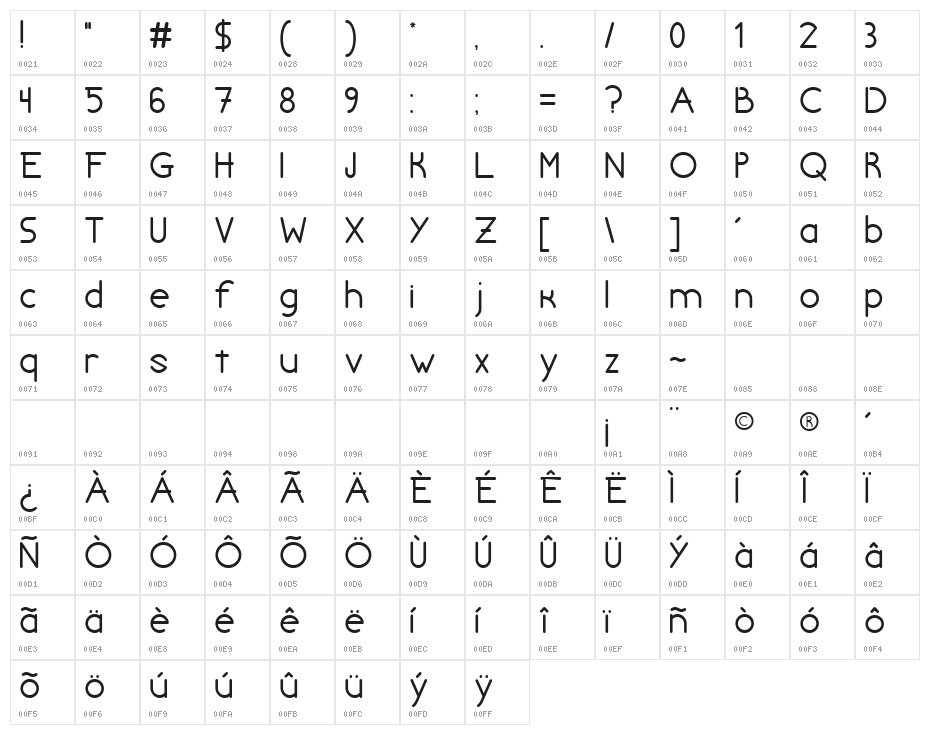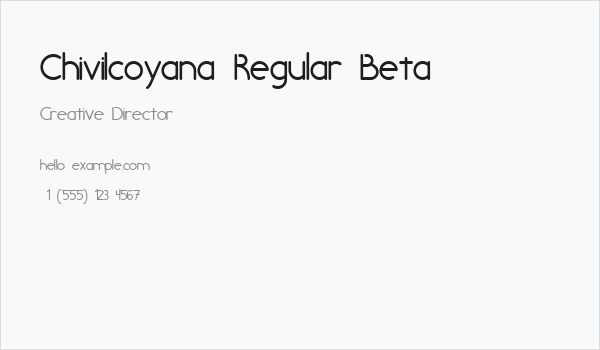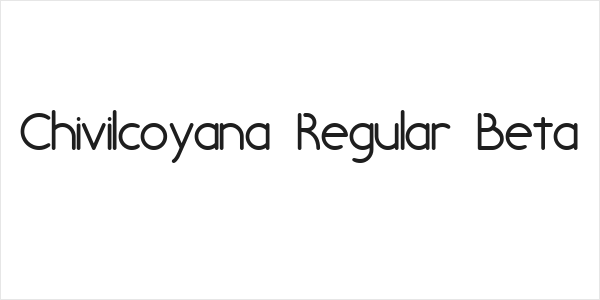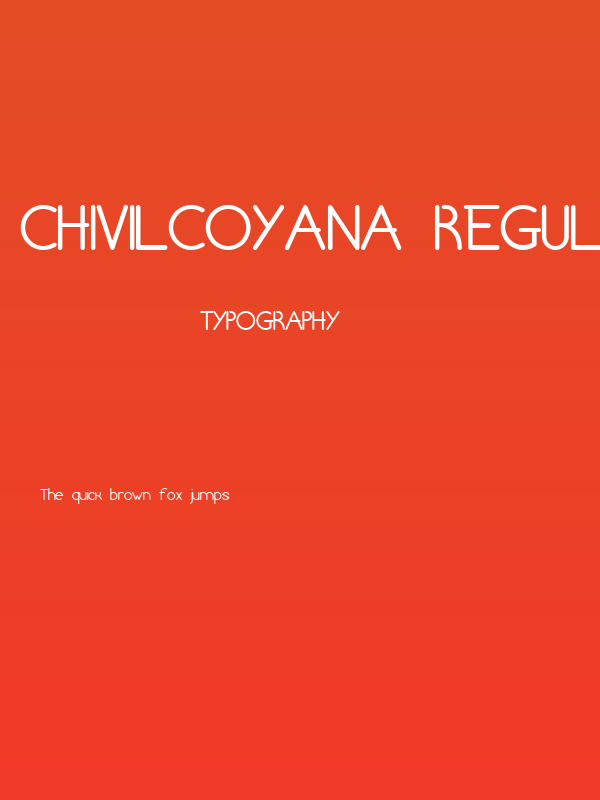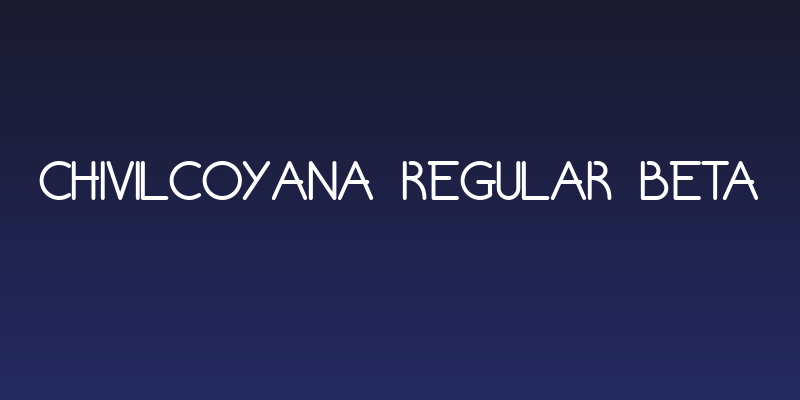
Chivilcoyana Regular Beta Font
Chivilcoyana Regular Beta Description
This font features a clean and modern design with rounded edges and a uniform stroke width. The characters are well-proportioned, offering a harmonious balance between readability and style. The uppercase letters are bold and assertive, while the lowercase letters maintain a friendly and approachable appearance. The numerals are clear and distinct, making them suitable for various applications. Special characters are included, enhancing the font's versatility. Overall, this font exudes a contemporary and professional feel, making it ideal for a wide range of design projects.
| Proposed Projects | Ideal for branding, advertising, web design, and editorial projects. |